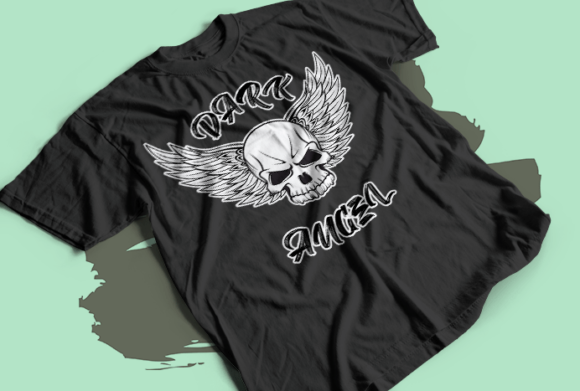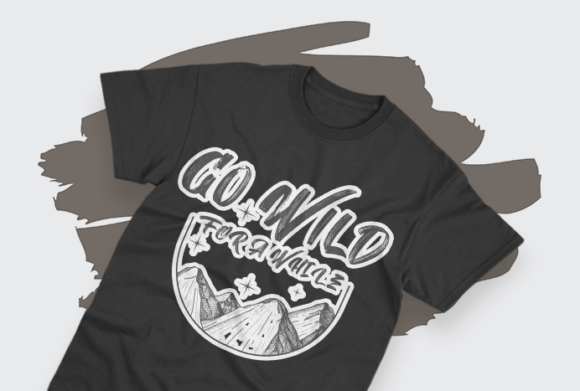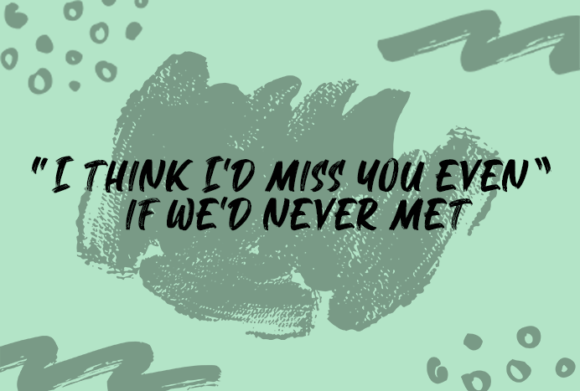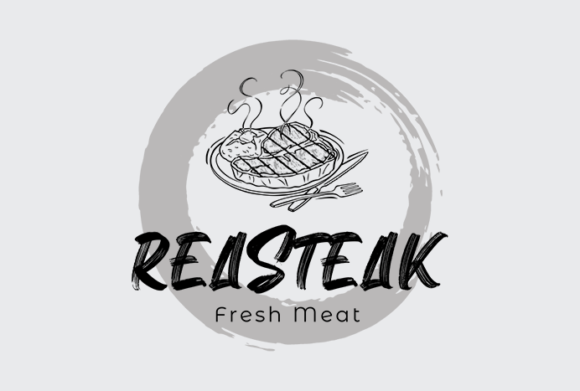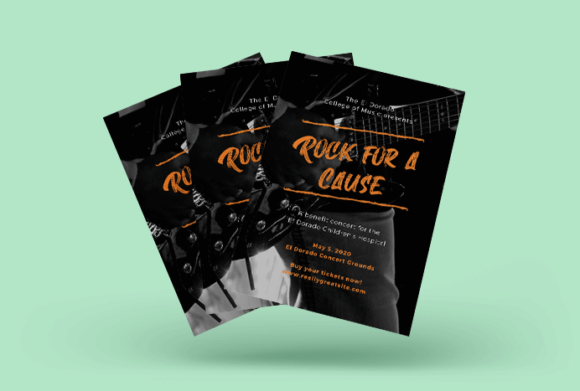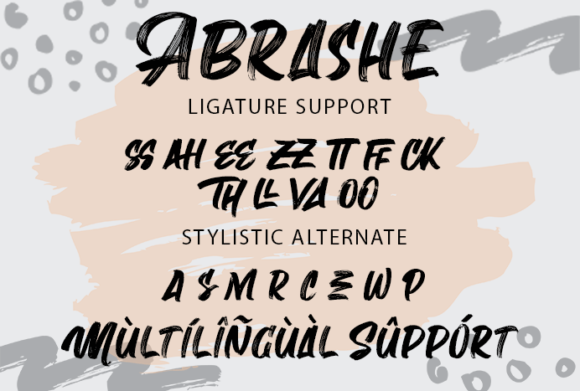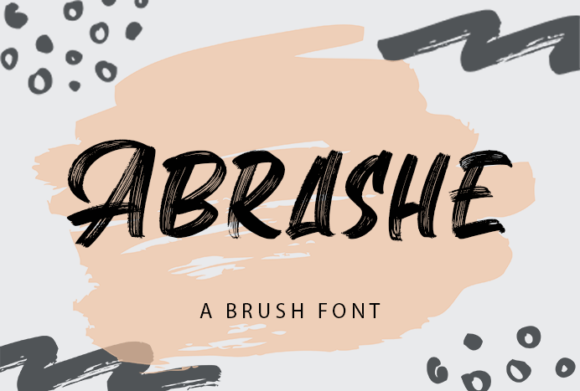
A Fresh Brush with Creativity
Have you ever sat at your desk, staring blankly at a blank sheet of paper, waiting for inspiration to strike? For designers, this moment is all too familiar. The blank slate can be both exhilarating and daunting, but it’s in these moments that we discover the true power of creativity. And what better way to unlock that creativity than with the perfect font?
Enter the Abrashe Brush Font, a stunning pairing of a brush pen and pencil that brings a touch of authenticity to any design. Whether you’re working on branding, quotes, posters, or music-related projects, this font is perfectly suited for the task at hand. Its unique charm and versatility make it a valuable asset for designers looking to add a personal touch to their work.
With the Abrashe Brush Font, you’ll be able to create designs that are both visually striking and emotionally resonant. Its endearing quality is sure to captivate your audience and leave a lasting impression. Whether you’re a seasoned designer or just starting out, this font is sure to become a trusted companion in your creative journey.
Abrashe Brush Font Key Features
- Font Family: Abrashe Brush Font is a handwritten font, perfect for creating a unique and artistic look in your designs.
- Unique Characteristics: Abrashe Brush Font features a distinctive brush-like texture and irregular letterforms, giving it a hand-drawn, artistic feel.
- Font Styles: The font comes in Regular, Italic, Bold, and Bold Italic styles, allowing for versatility in design applications.
Abrashe Brush Font Review
I recently had the chance to work with the Abrashe Brush Font, and I have to say, it’s a unique and interesting addition to any design project. ✨ Here are some of the things that stood out to me:
- Customizability: This font offers a range of customization options, from font size to line height, allowing for a high degree of control over the final product.
- Expressive strokes: The brush-like strokes in this font give it a distinctive, hand-drawn feel that can add a lot of personality to a design.
- Support for multiple languages: I was impressed by the font’s support for a wide range of languages, making it a versatile choice for designers working on international projects.
- Glitchy performance: In some cases, the font seemed to glitch or stutter, especially when used in larger font sizes or with complex typography.
- Lack of fine-tuning options: While the font offers a good range of customization options, it would be nice to have even more fine-tuning options to really get the look just right.
Overall, I think the Abrashe Brush Font is a solid choice for designers looking for a unique and expressive font. With a little patience and experimentation, it can add a lot of visual interest to a design project. But be aware of the potential for glitchy performance and limited fine-tuning options.
For the best results, use the font in a bold, eye-catching way to make your design stand out.
For a unique look, try using the font in a creative way, such as in a hand-drawn or watercolor style.
For a professional look, pair the font with a clean, simple design and plenty of white space.
The Abrashe Brush Font is ideal for:
1. Creating eye-catching social media graphics and posts.
2. Designing presentations and reports with a professional, yet creative touch.
3. Adding a unique touch to marketing materials, such as brochures and flyers.
4. Creating hand-drawn or watercolor-style designs
Q: Is the Abrashe Brush Font available in different font weights and styles?
Yes, the Abrashe Brush Font is available in multiple font weights, including Light, Regular, Medium, Bold, and Black. It also features a range of styles, including Italic, Oblique, and Swash. The font is highly customizable, allowing you to adjust the letter spacing, word spacing, and other settings to suit your